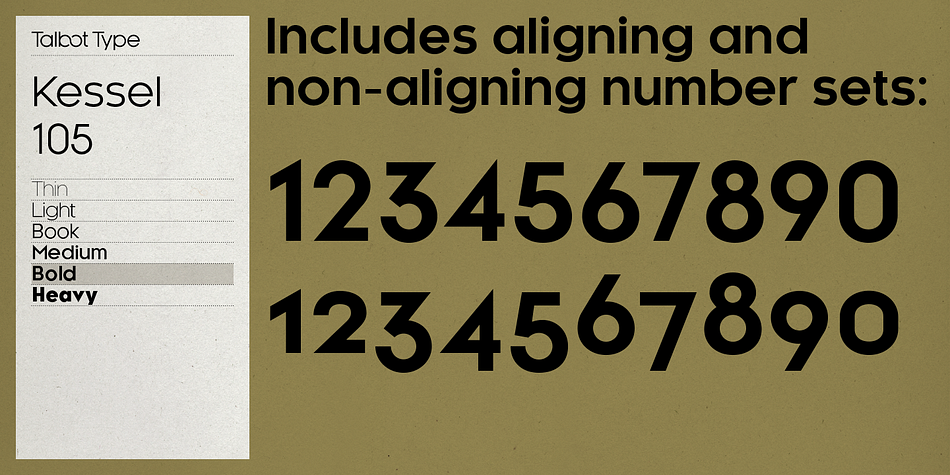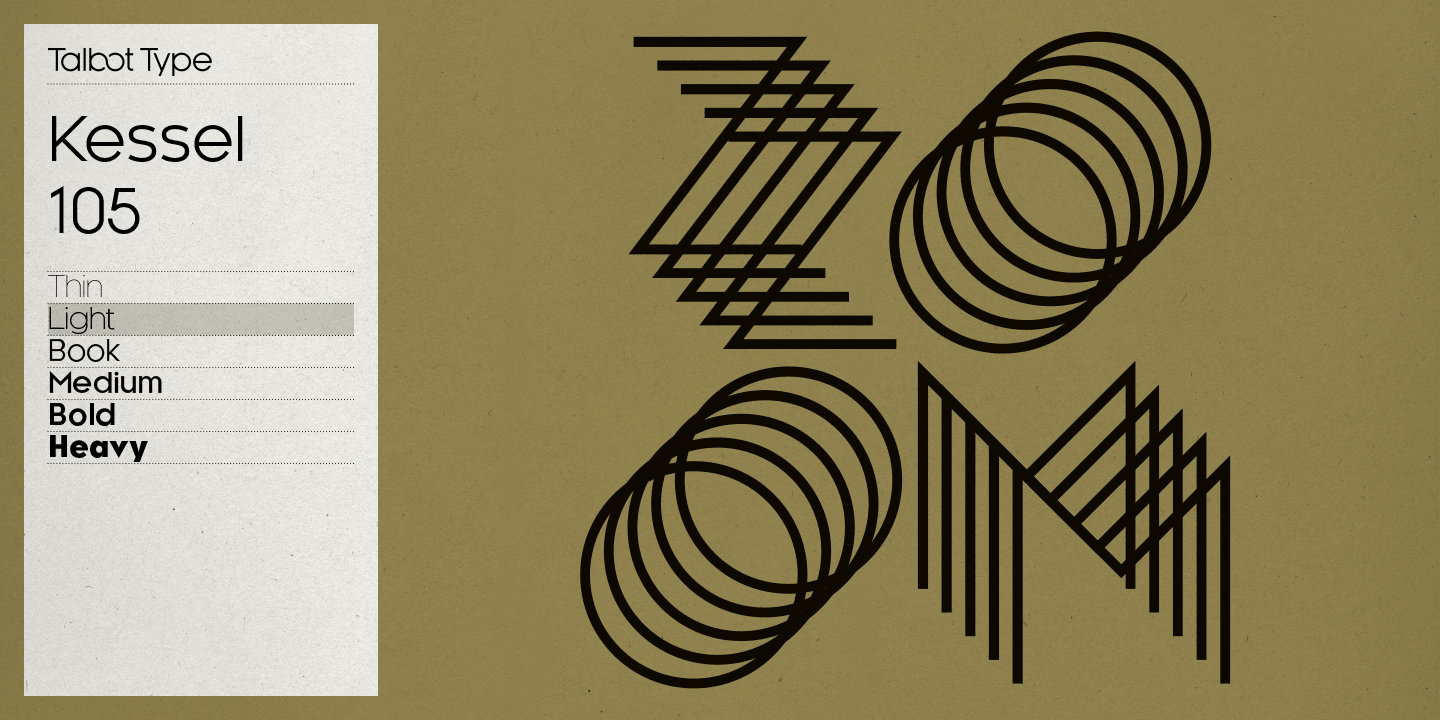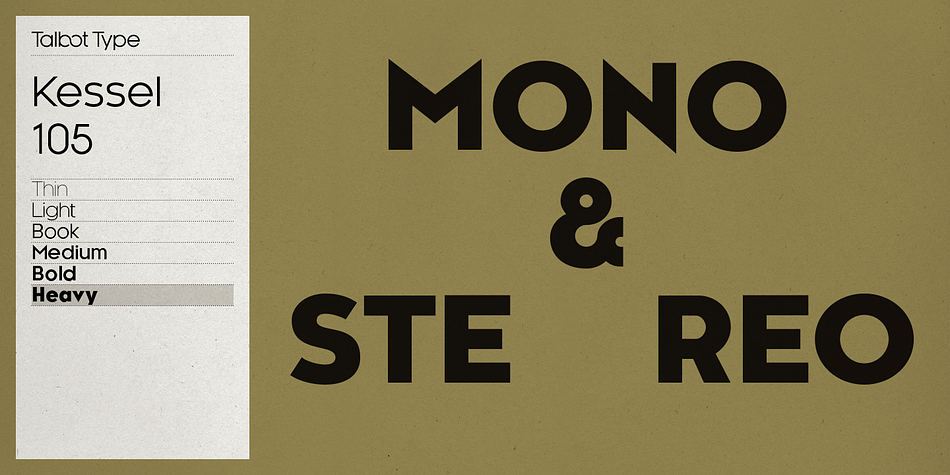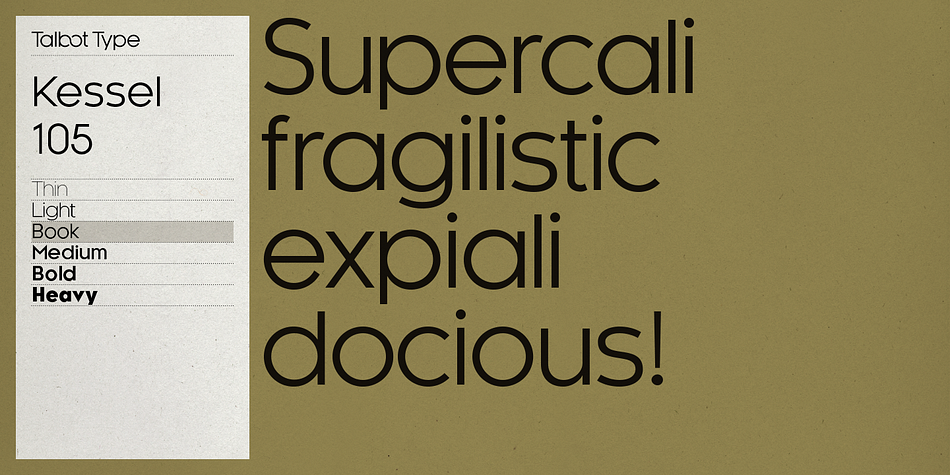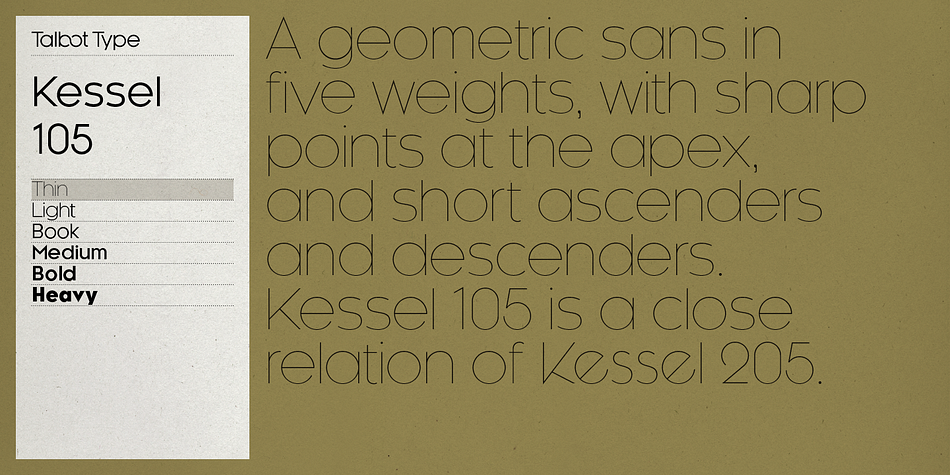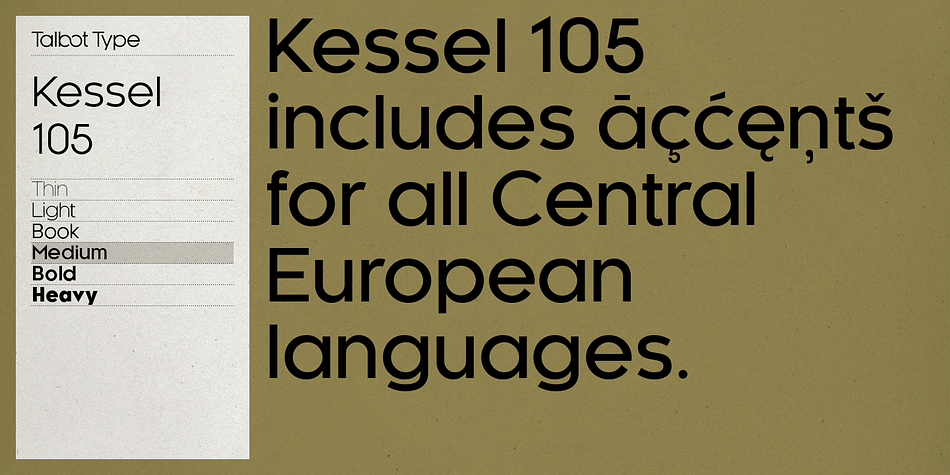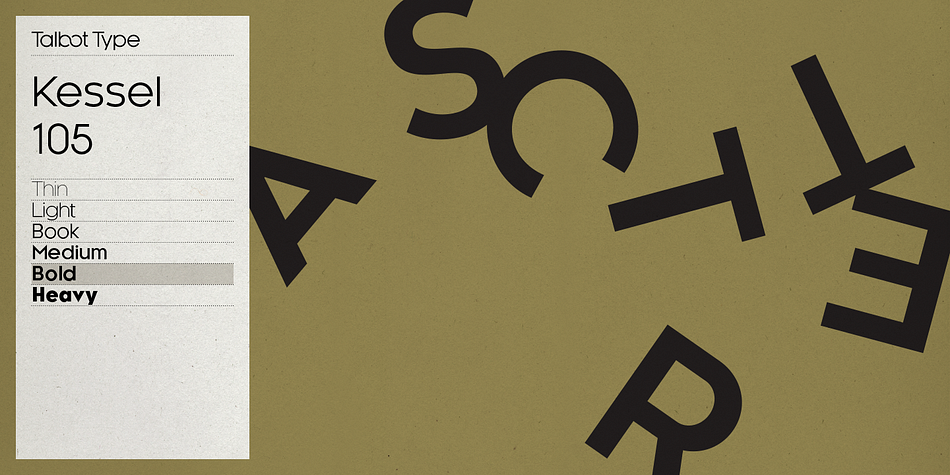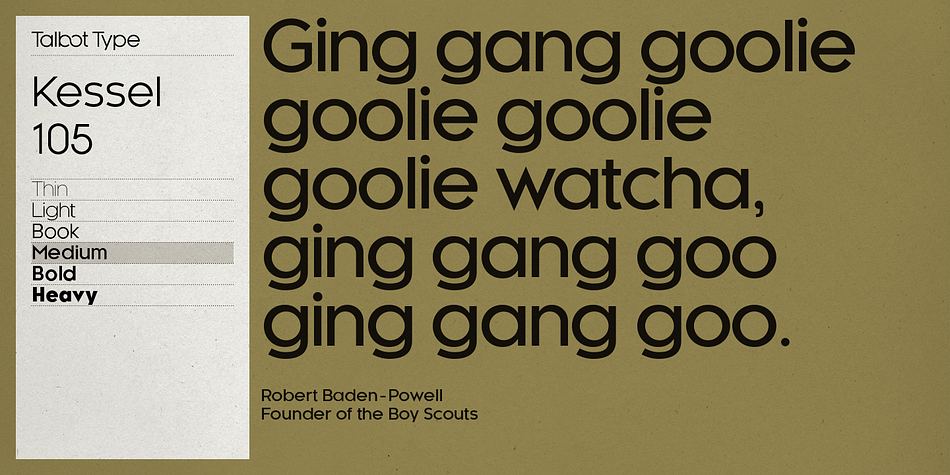
Kessel 105 is a sans serif font family. This typeface has twelve styles and was published by Talbot Type.
Kessel 105 is a geometric sans-serif, with oblique cut terminals and an Art Deco influence in the form of sharp points at the apex of many characters, creating a distinct look.
It’s a versatile, modern sans, highly legible as a text font and with a clean, elegant look as a display font at larger sizes. The Kessel 105 family comprises of six weights and is closely related to Kessel 205 with emphasized Art Deco characteristics.
Kessel 105 features both aligning and non-aligning (old style) numerals and includes an extended character set, to offer accented characters for Central European languages.